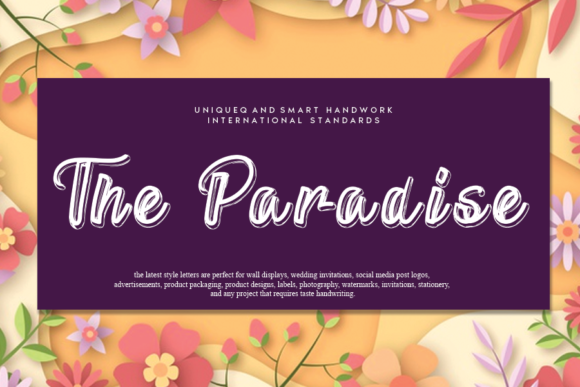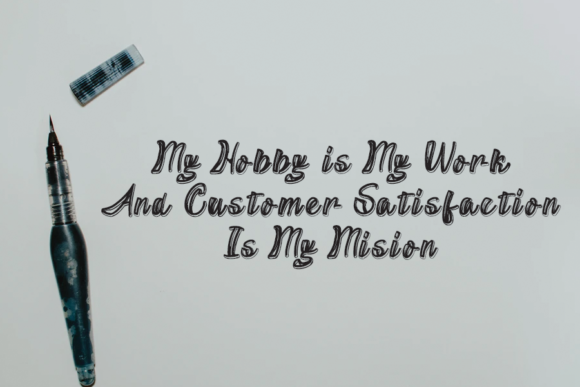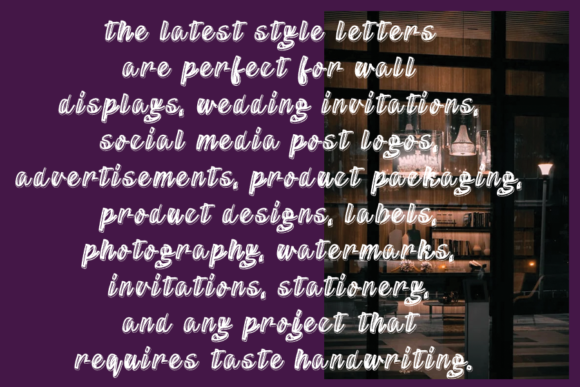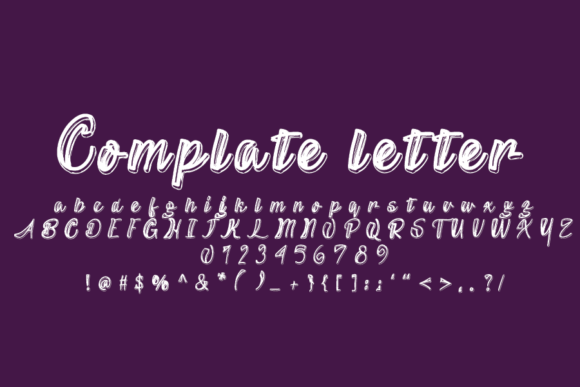
The Paradise Font
About The Paradise Font
The Paradise is an exquisite handwritten font, masterfully designed to become a true favorite. It maintains its classy calligraphic influences while feeling contemporary and fresh. Fall in love with it and bring your projects to the highest levels!